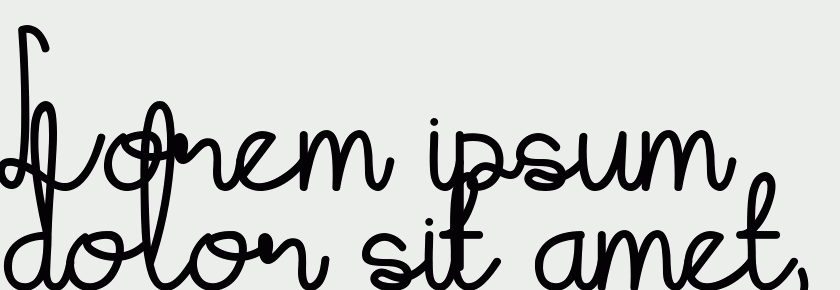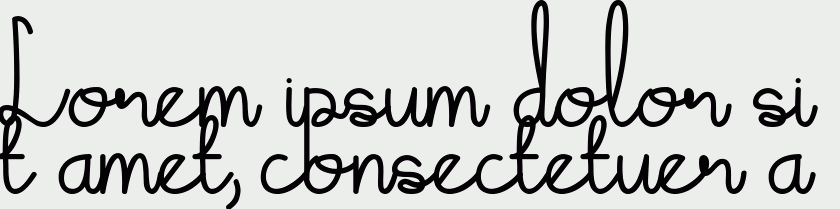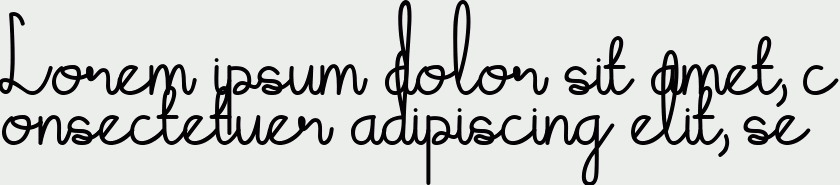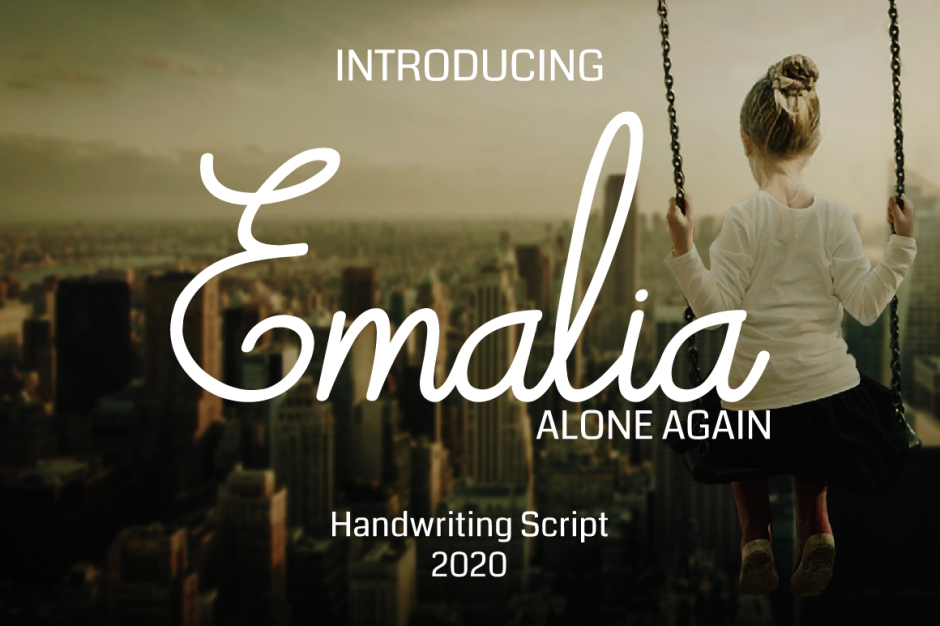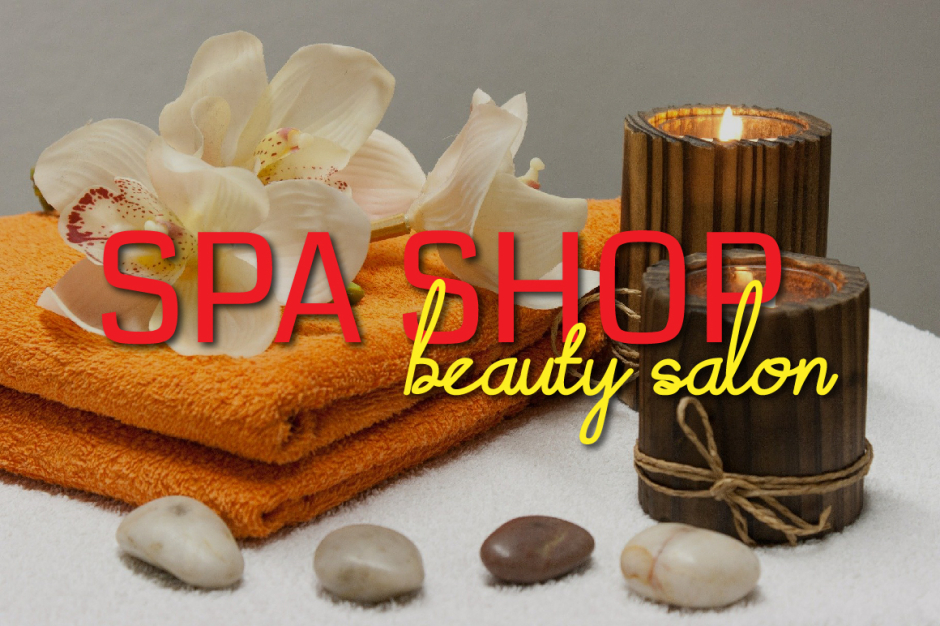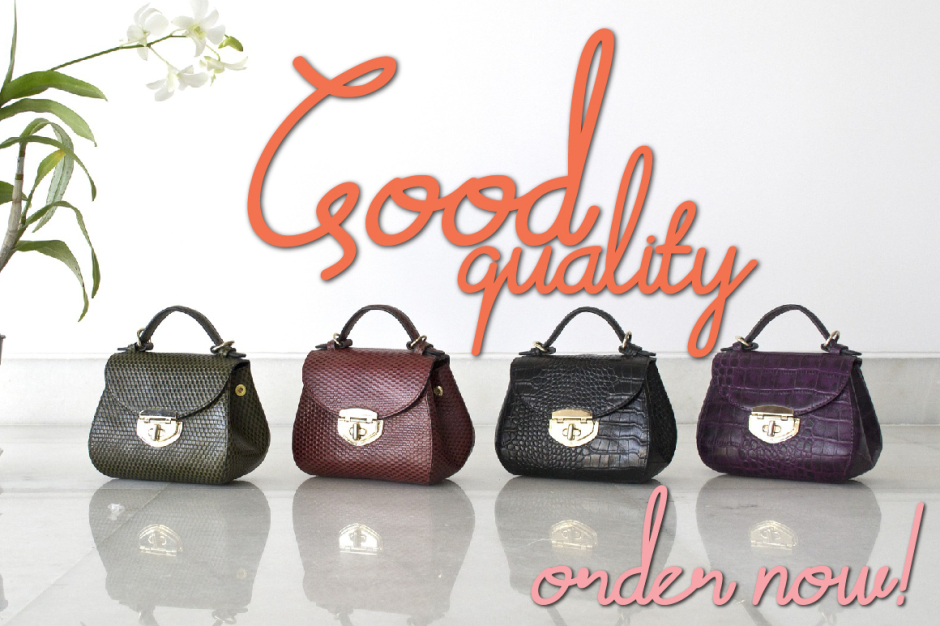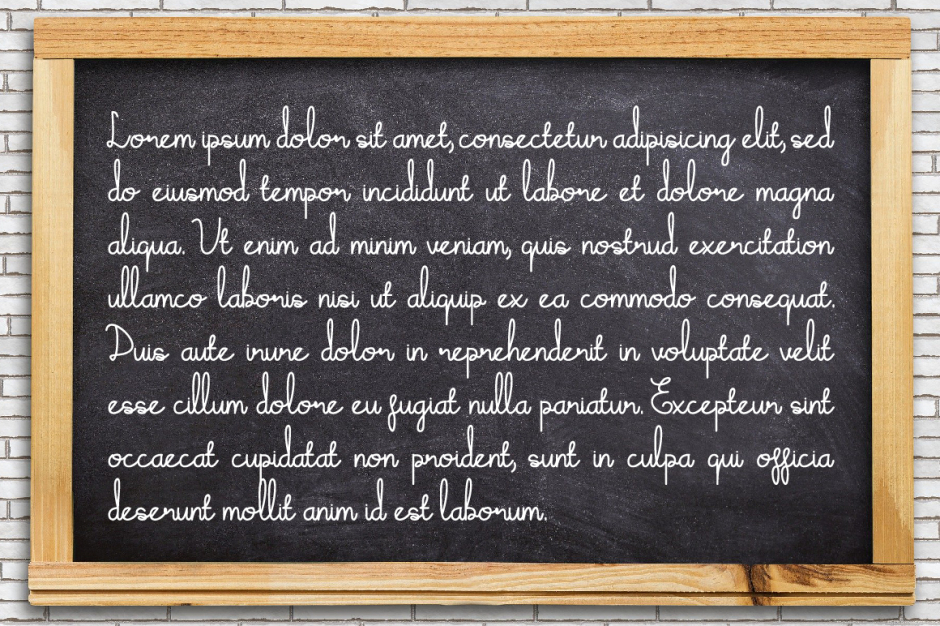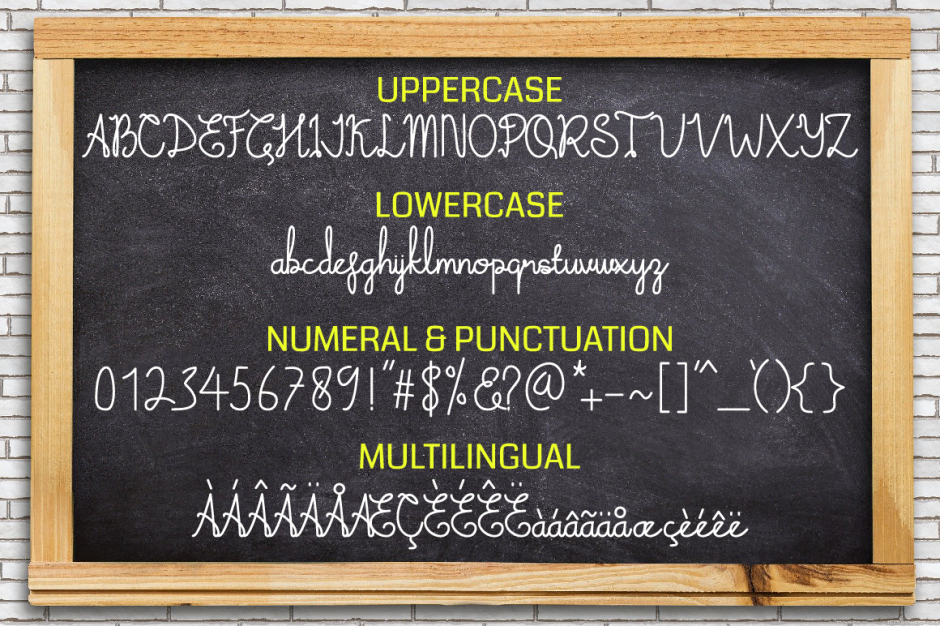
Emalia
/ Emalia Regular
Emalia is a cute and casual handwritten font with an incredibly friendly feel. It features gorgeous swashes and ligatures that make this script incredibly versatile. Whether you’re looking for fonts for Instagram or calligraphy scripts for DIY projects, Emalia will turn any creative idea into a true piece of art!